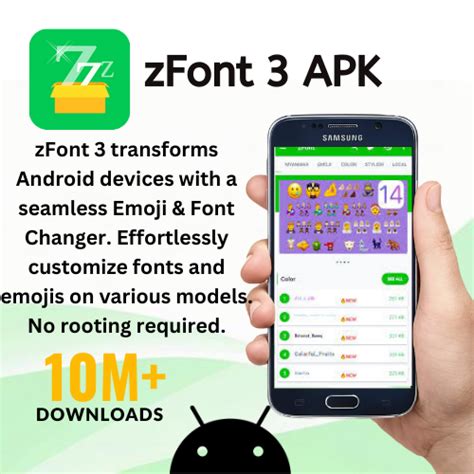
ZFont IOS V133: Custom Fonts Explained
ZFont iOS v133: Custom Fonts Explained
Hey everyone! So, you’ve probably stumbled upon ZFont iOS v133 and are wondering what all the fuss is about, right? Well, buckle up, guys, because we’re diving deep into the world of custom fonts on your iOS devices. If you’ve ever felt like your iPhone’s or iPad’s text is a bit… vanilla , then ZFont is here to spice things up. We’re talking about transforming the look and feel of your entire operating system, from your messages to your social media apps, all with the power of custom fonts. It’s like giving your device a whole new personality! But what exactly is ZFont, and how does this specific version, v133, fit into the picture? Stick around, and we’ll break it all down, making sure you understand every bit of this awesome customization tool. We’ll cover what it does, why you’d want to use it, and how you can get started with making your iOS device truly unique. This isn’t just about changing a font here or there; it’s about a comprehensive aesthetic upgrade that can make your daily digital interactions way more exciting and personal. So, if you’re ready to ditch those default fonts and explore a universe of typographic creativity, you’ve come to the right place. Let’s get this font party started!
Understanding Custom Fonts on iOS
Alright, let’s get down to the nitty-gritty: why would you even want custom fonts on your iOS device? Honestly, the default fonts Apple gives us are perfectly functional and quite elegant, but let’s be real, they can get a little monotonous after a while. For many of us, our smartphones and tablets are extensions of our personality, and that includes the way information is presented. Custom fonts allow you to express yourself visually. Imagine your messages popping with a sleek, modern font, or your notes having a charming, handwritten feel. It’s all about personalization, guys. Think about it: you spend hours every day looking at your screen. Shouldn’t it look the way you want it to? Custom fonts can make your device feel more you . It’s not just about aesthetics, either. For some, specific fonts might even improve readability. Maybe a bolder font helps with visual clarity, or a more spaced-out font reduces eye strain. The possibilities are pretty vast, and ZFont iOS v133 aims to unlock them for you. Historically, customizing system-wide fonts on iOS was a major headache, often requiring jailbreaking your device, which most people shy away from due to security risks and warranty concerns. ZFont, however, offers a way to achieve this without going down that rabbit hole. It’s designed to be more accessible, allowing a broader range of users to explore font customization. We’re talking about a level of control over your device’s appearance that was previously reserved for tech wizards. So, when we talk about custom fonts, we’re not just talking about a minor tweak; we’re talking about a fundamental change to how your entire iOS experience looks and feels. It’s a powerful way to make your device stand out from the crowd and reflect your unique style.
What is ZFont and How Does it Work?
So, what exactly is ZFont ? In simple terms, ZFont is an application designed to help you install and use custom fonts across your iOS devices. Think of it as your personal font manager for your iPhone or iPad. The magic of ZFont lies in its ability to bypass the typical limitations imposed by Apple, allowing you to apply fonts not just to specific apps that support custom font import, but system-wide. Now, ZFont iOS v133 is a specific iteration of this tool. While the core functionality remains the same – enabling custom font installation – newer versions often come with bug fixes, performance improvements, and sometimes even enhanced features or a more streamlined user experience. So, why is v133 relevant? It likely represents a stable, refined version of the app that works well with the current iOS ecosystem. How does it pull off this seemingly magical feat without jailbreaking? ZFont typically utilizes profiles and configuration methods that iOS recognizes. It doesn’t alter your device’s core operating system in a way that compromises security. Instead, it cleverly installs fonts that your device can then recognize and use. This often involves creating a font file and then using ZFont to package and install it correctly. The process usually involves downloading font files (often in .ttf or .otf formats), using ZFont to convert and install them, and then selecting them in your device’s settings or within compatible apps. It’s a clever workaround that gives you significant control without the risks associated with jailbreaking. Guys, the power here is in the accessibility. Previously, getting unique fonts onto your iPhone meant complex steps or limiting yourself to apps that had their own font selection. ZFont democratizes this, making it achievable for almost anyone with a compatible iOS device. It’s about bringing typographic freedom to the masses, allowing you to curate the exact visual style you desire for your device’s interface.
Getting Started with ZFont iOS v133
Benefits of Using Custom Fonts
Let’s talk about the awesome perks of using custom fonts with tools like ZFont iOS v133. First and foremost, it’s all about unleashing your personal style . Your phone isn’t just a gadget; it’s an accessory, a part of your identity. Why should it look like everyone else’s? With custom fonts, you can make your messages, notes, and even your social media posts uniquely yours. Imagine a chic, elegant script for your personal journaling app or a bold, modern typeface for your work documents. It adds a splash of personality that default options just can’t match. Beyond pure aesthetics, improved readability is a huge benefit. Sometimes, the standard fonts can feel a bit cramped or hard to read, especially for longer texts or if you have visual impairments. Finding a font with better spacing, a clearer character design, or a bolder weight can make a significant difference in your reading experience. It’s about making your device more comfortable and accessible for you . Another cool aspect is making your device stand out . In a sea of identical iPhones, a unique font choice is an instant conversation starter. It shows attention to detail and a creative flair. Plus, it can make navigating your device feel more engaging. When everything looks fresh and personalized, interacting with your tech can become a more enjoyable experience. Think about the professional edge , too. If you use your device for work, specific fonts can lend a more professional or creative look to documents created on the go. It’s a subtle but effective way to enhance your digital presentation. ZFont iOS v133 makes all of this possible without the hassle of jailbreaking, which is a massive win. It’s about giving you control over the visual aspects of your device in a safe and accessible way. So, if you’re looking to add a personal touch, boost legibility, or simply make your digital life a little more visually exciting, custom fonts are the way to go, guys!
Potential Challenges and Considerations
Now, while ZFont iOS v133 is a fantastic tool for font lovers, it’s not without its potential bumps in the road. We gotta keep it real, guys. One of the main considerations is compatibility . Not all apps on iOS are built to handle custom fonts gracefully. While ZFont excels at making fonts available, some third-party apps might not recognize or properly display them. You might find that a font looks great in your Notes app but appears as a default font in another application. This is often due to how developers code their apps and their support for system-level font changes. Another thing to keep in mind is font file sources . Since you’re often downloading fonts from outside the official App Store, it’s crucial to stick to reputable websites. Downloading fonts from untrusted sources can potentially expose your device to malware or unwanted software . Always do your homework and stick to well-known font repositories. Performance can also be a factor. While ZFont itself is generally lightweight, loading your device with a huge number of custom fonts might, in rare cases, have a minor impact on system resources or app loading times. It’s usually negligible, but something to be aware of if you’re installing hundreds of fonts. Furthermore, iOS updates can sometimes cause temporary issues. Apple occasionally tweaks how font profiles are handled in their operating system updates. This means a font you installed might stop working after an iOS update, and you might need to wait for an updated version of ZFont or reinstall the font profile. It’s a good idea to back up your favorite font files just in case. Finally, remember that ZFont facilitates font installation. The actual design and legibility of the font itself are up to the font creator. So, while ZFont provides the means , choosing a well-designed, legible font is still key to a good user experience. Don’t pick a fancy-looking font if it makes reading difficult, guys!
The Future of Font Customization on iOS
Looking ahead, the landscape of font customization on iOS is constantly evolving, and tools like ZFont iOS v133 are at the forefront of this change. As Apple continues to refine iOS, the methods for enabling deeper customization often adapt. We’ve seen iOS become more open over the years, allowing for features that were once considered impossible without jailbreaking. While system-wide font changes still present unique challenges for Apple due to the integrated nature of their OS and the desire for a consistent user experience, the demand for personalization is undeniable. We’re seeing developers get creative , finding innovative ways to allow users to express themselves through typography. Future versions of ZFont, or similar applications, might leverage new iOS APIs or configuration methods to offer even more seamless integration. Perhaps we’ll see better management of font libraries directly within the app, or more intuitive ways to apply fonts across different applications and system elements. The core desire is clear: users want their devices to reflect their personality. Whether it’s for aesthetic appeal, improved readability, or simply a desire for something different, the drive to customize is strong. As operating systems become more sophisticated, so do the tools that allow us to tailor them. Guys, the future looks bright for anyone who loves fonts. We can expect continued innovation in this space, making it easier and safer than ever to give your iPhone or iPad a truly unique typographic identity. It’s an exciting time to be a font enthusiast, with more options and control becoming available with each passing year, pushing the boundaries of what’s possible on a closed ecosystem like iOS.
Conclusion: Personalize Your iOS Experience
So there you have it, folks! ZFont iOS v133 and the world of custom fonts on iOS offer a fantastic opportunity to truly personalize your digital life. We’ve walked through what custom fonts are, why you’d want them, how ZFont makes it happen without the risks of jailbreaking, and what you need to consider. It’s all about making your device feel like *yours *. From boosting your personal style and making text more readable to simply making your everyday interactions with your tech more visually engaging, the benefits are clear. Remember to always download fonts and use tools like ZFont from trusted sources to keep your device secure. While there might be occasional compatibility quirks or the need to adapt to iOS updates, the freedom and creative expression offered are well worth it. Guys, don’t settle for default if you crave something more. Dive in, explore the endless typographic possibilities, and give your iPhone or iPad the unique look and feel it deserves. Happy font hunting!